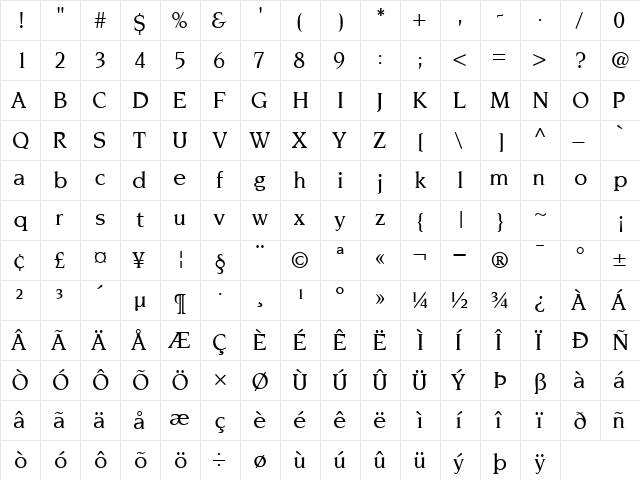
TridentMediumSSK Regular
Design Context for TridentMediumSSK Typeface
TridentMediumSSK takes a measured approach to typography — its balanced proportions and neutral character make it a reliable workhorse for both digital and print work.